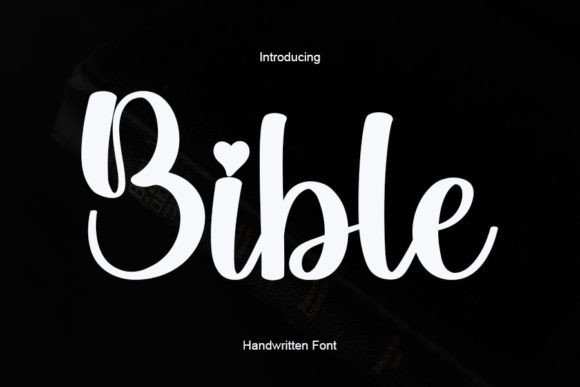
The Bible Font: A Timeless Beauty for Your Designs
Have you ever been in the middle of a design project, and suddenly, you just can’t seem to find the right font? I recall a particularly frustrating experience while working on a wedding invitation design. My client wanted something elegant, yet modern, and I was determined to deliver. That’s when I stumbled upon the Bible font, and it completely transformed my design. In this article, we’ll dive into the world of Bible font, exploring its unique features, how to use it, and what makes it so special.
A Personal Review: What I Love About Bible Font
So, what makes Bible font so charming? Here are a few things that I absolutely love:
- ✨ Elegant and refined: Bible font boasts an incredibly distinct and timeless style that’s perfect for designs that require a touch of sophistication.
- ✅ Versatile: Whether you’re working on a logo, a poster, or a social media graphic, Bible font adapts seamlessly to various design contexts.
- 💫 Handwritten charm: The font’s handwritten nature adds a personal touch to any design, making it feel more approachable and warm.
While Bible font is undoubtedly beautiful, there are a few minor quirks to be aware of:
- 🤔 Limited use in body text: Due to its elegant and cursive nature, Bible font might not be the best choice for lengthy body text. It’s better suited for headings, titles, or short paragraphs.
- ⚠️ Glyph compatibility: Some glyphs or special characters might not be available in Bible font, so be sure to test your design thoroughly.
- Experiment with OpenType features, such as ligatures and stylistic alternates, to add more flair to your text.
The Designer Inspiration Behind Bible Font
While the origins of Bible font are unclear, it’s likely that its design was inspired by traditional handwritten Bibles and elegant calligraphy. The font’s creator aimed to capture the essence of classic handwritten scripts, while making it suitable for modern design applications.
| Font Name | Bible Font |
| What is the best use for Bible font? | Bible font is ideal for designs that require an elegant, refined touch, such as headings, titles, and short paragraphs. |
| Can I use Bible font for body text? | While Bible font is beautiful, it’s not recommended for lengthy body text due to its elegant and cursive nature. It’s better suited for headings, titles, or short paragraphs. |